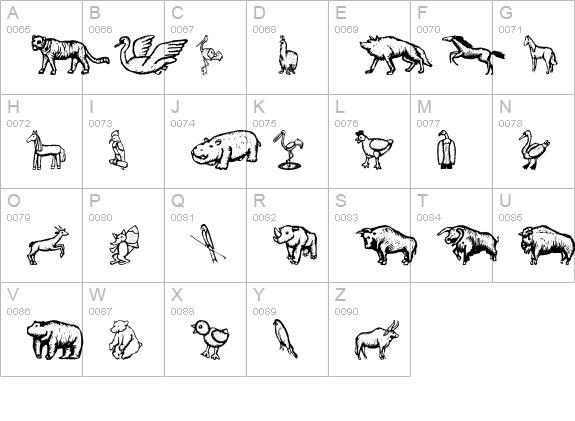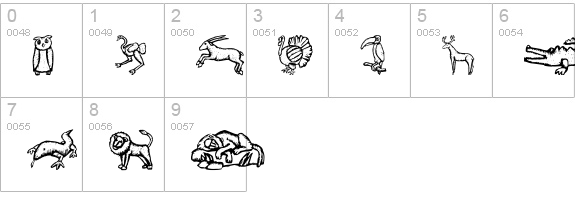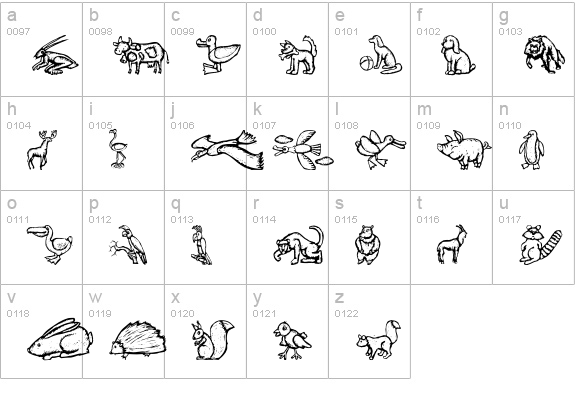
ZooWoodcutsM Font Details
ZooWoodcutsM font is a whimsical and charming typeface inspired by the intricate designs found in zoo woodcuts. With its playful and artistic appearance, this font is perfect for adding a touch of fun to your projects. Each letter is carefully crafted with intricate details that will make your text stand out. The ZooWoodcutsM font is not only visually appealing but also versatile, making it suitable for a wide range of creative designs, from posters to invitations to branding materials. Its unique style is sure to captivate the attention of your audience and leave a lasting impression. Best of all, ZooWoodcutsM font is completely free to download at FontsMarket.com. So go ahead and add a touch of whimsy to your projects with this delightful font today!